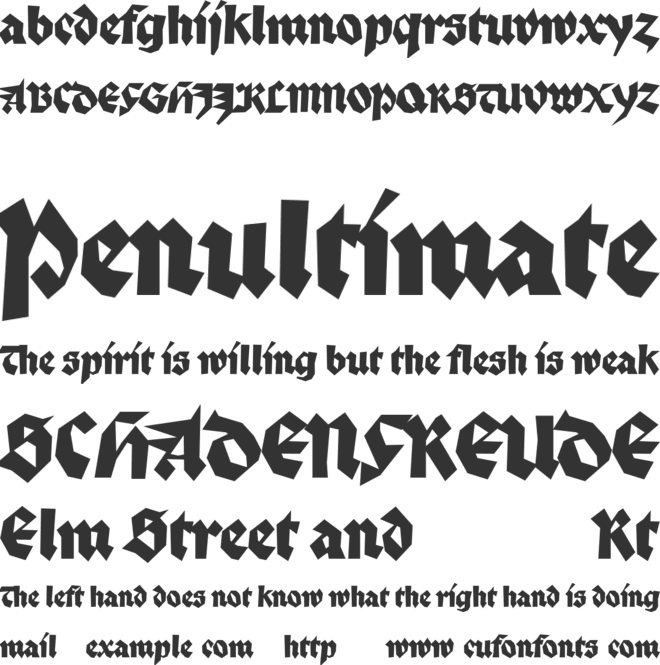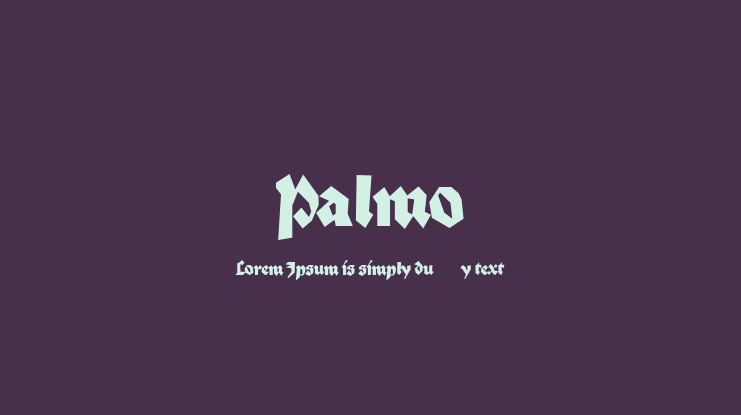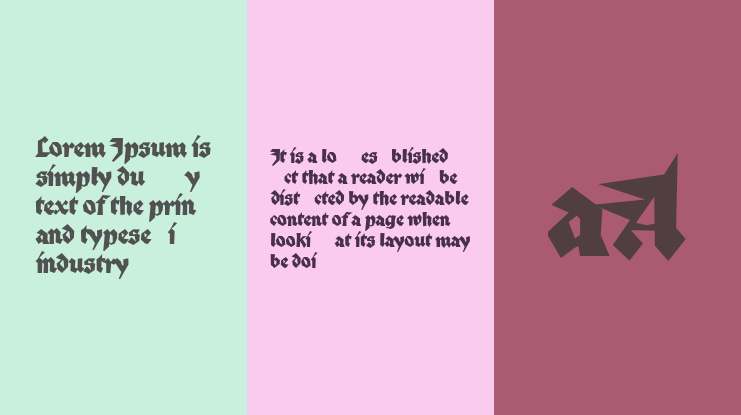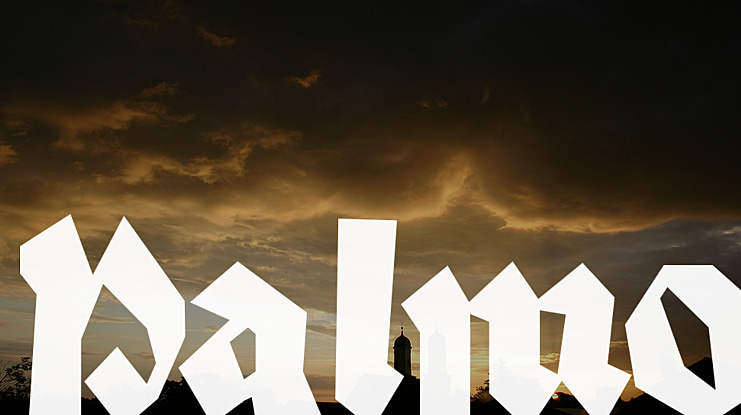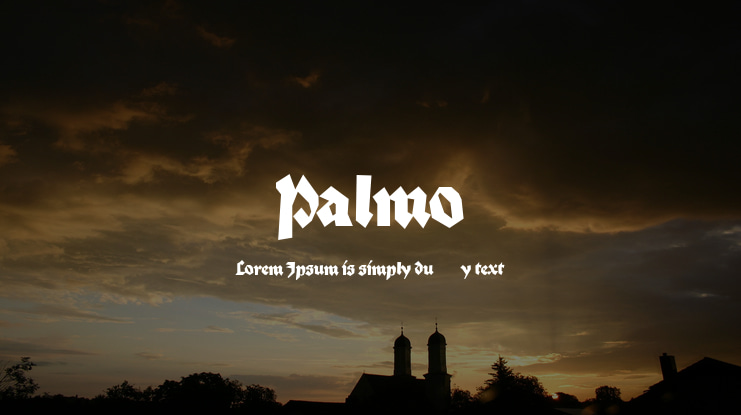
A rustic black letter from the 1930ies. With stylistic alternates.
The high degree of abstraction of this typeface allows it to appear modern, even though its shapes clearly show an origin from Fraktur and Gothic. The letters present the effect of woodcarving or silhouette cuttings as they are defined exclusively with straight lines and sharp corners. Even in modern times, there is again the demand for hand carved fonts and there is hardly anyone who still wants or can write such a type him or herself. Trotz dem extrem angewandten Brechungsprinzip entsprechen die meisten Buchstabenformen durchaus den heute gewohnten. Nur wenige - vor allem einige Versalien - betonen deutlich ihre Herkunft aus der Fraktur oder Gotisch. Durch den Verzicht auf jegliche Rundungen wird das Schriftbild zu einer stilistischen Einheit mit dekorativer Wirkung. Besonders in Kombination mit kräftigen Illustrationen wirkt die PALMONA sehr ansprechend. In spite of applying the principle of breaking-off to the extreme, most of the letter shapes are quite consistent with the familiar ones of today. Only a few especially the upper case letters clearly emphasize their Fraktur or Gothic origin. By doing without any bowls, the typeface becomes a stylistic entity with a decorative effect. PALMONA is especially appealing in combination with bold illustrations.